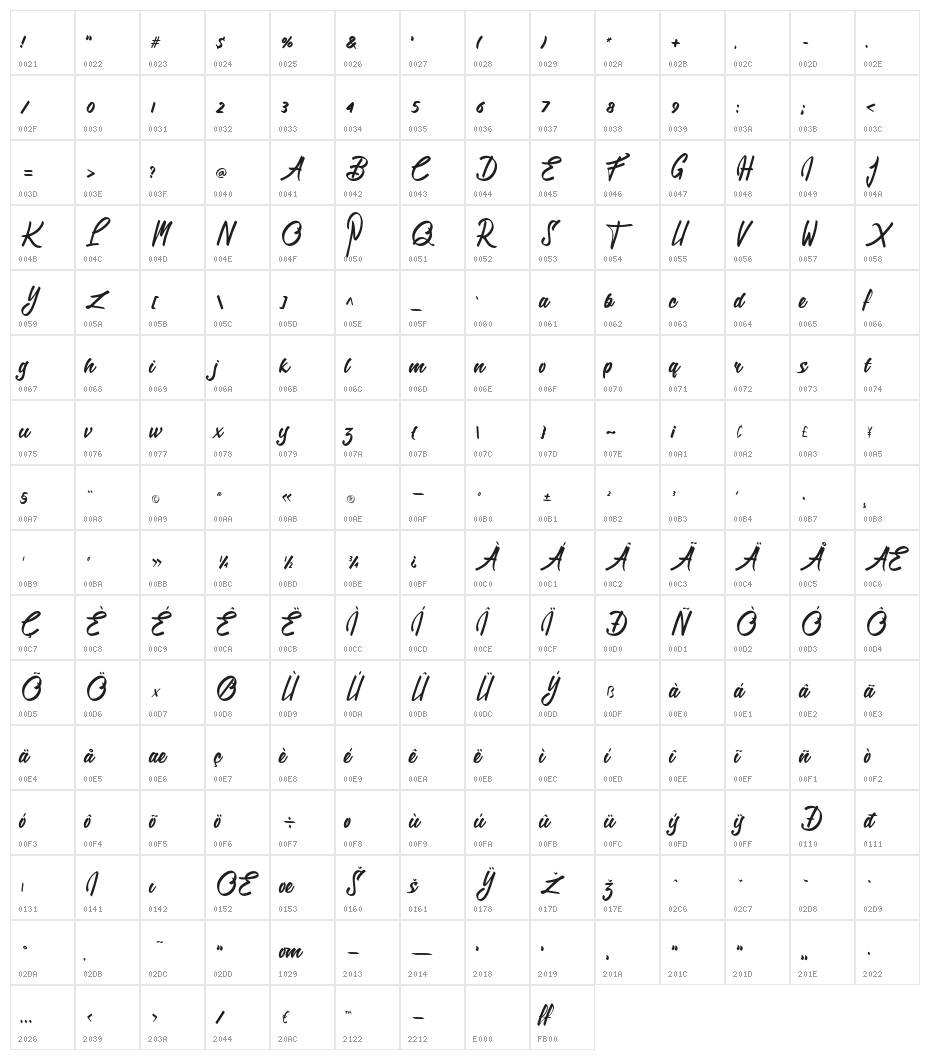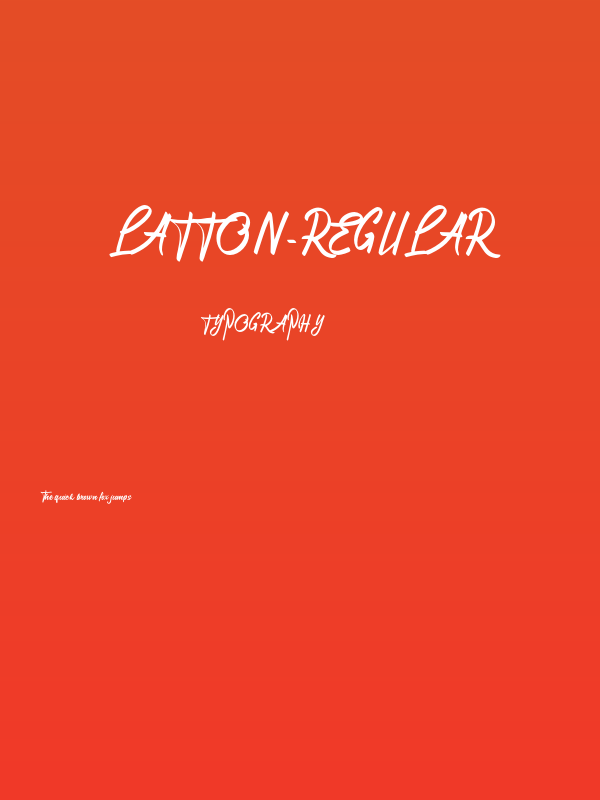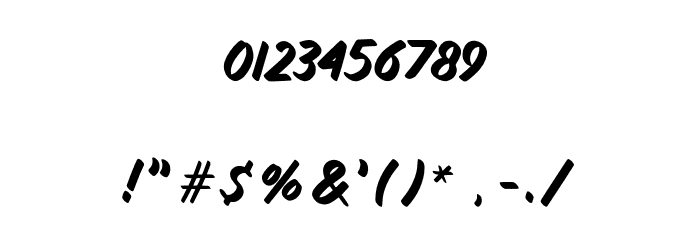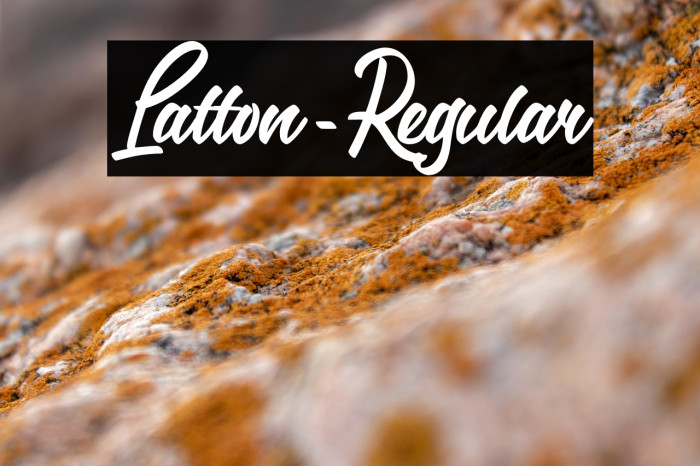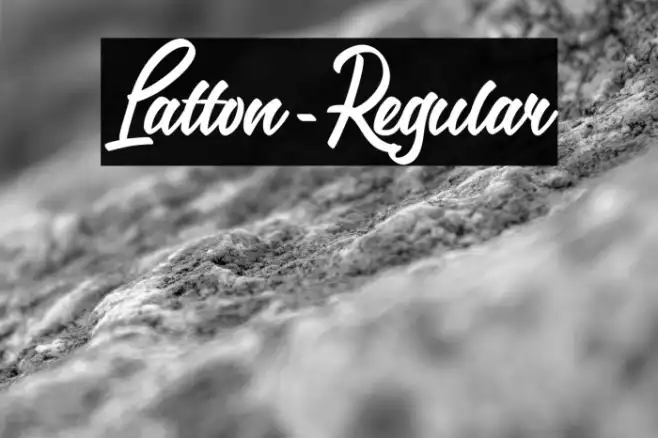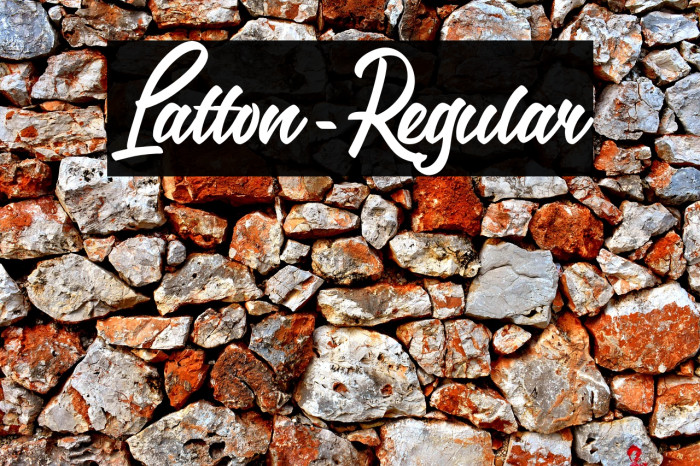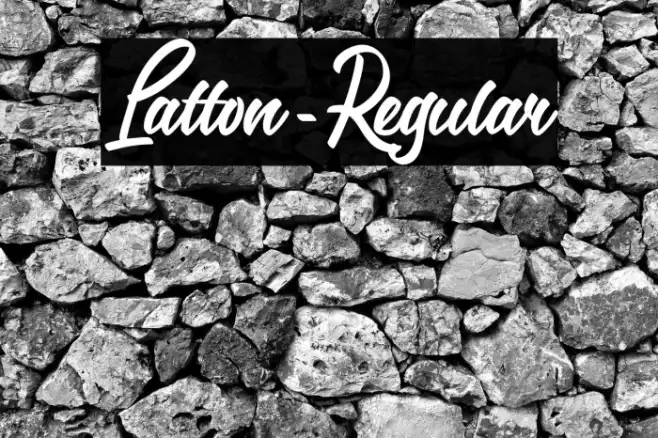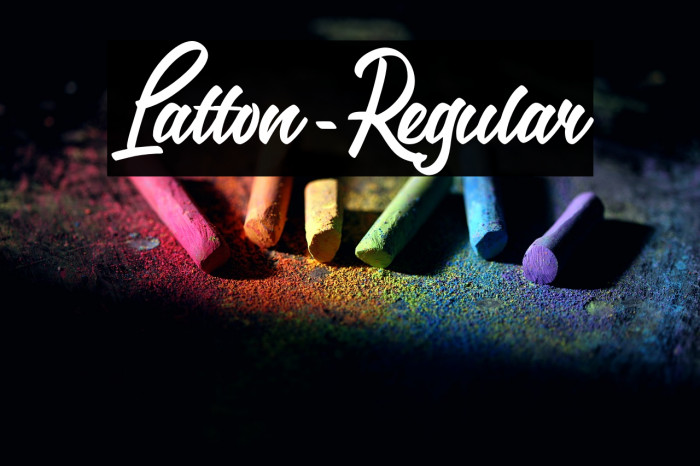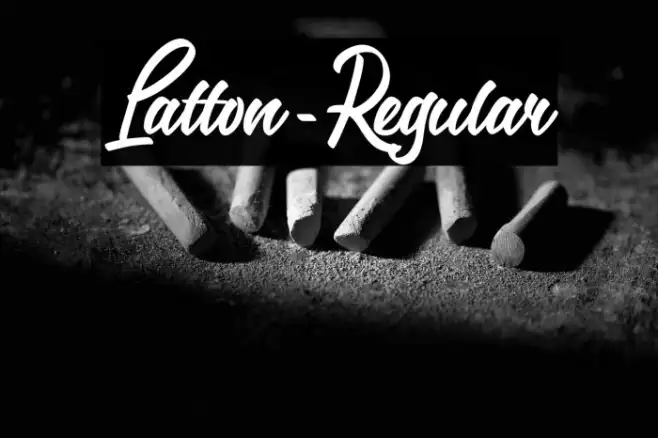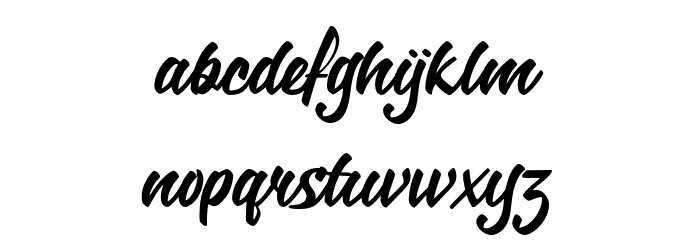
Latton-Regular Font
This font exhibits a dynamic and flowing script style, characterized by its elegant and cursive letterforms. The uppercase letters are bold and slightly slanted, giving a sense of movement and fluidity. The lowercase letters maintain a consistent style, with smooth curves and connected strokes that enhance its handwritten appearance. The numerals are clear and maintain the same cursive style, ensuring readability while preserving the overall aesthetic. Special characters are well-integrated, complementing the font's cohesive look.
| Proposed Projects | Ideal for wedding invitations, greeting cards, branding projects, and elegant logo designs. |